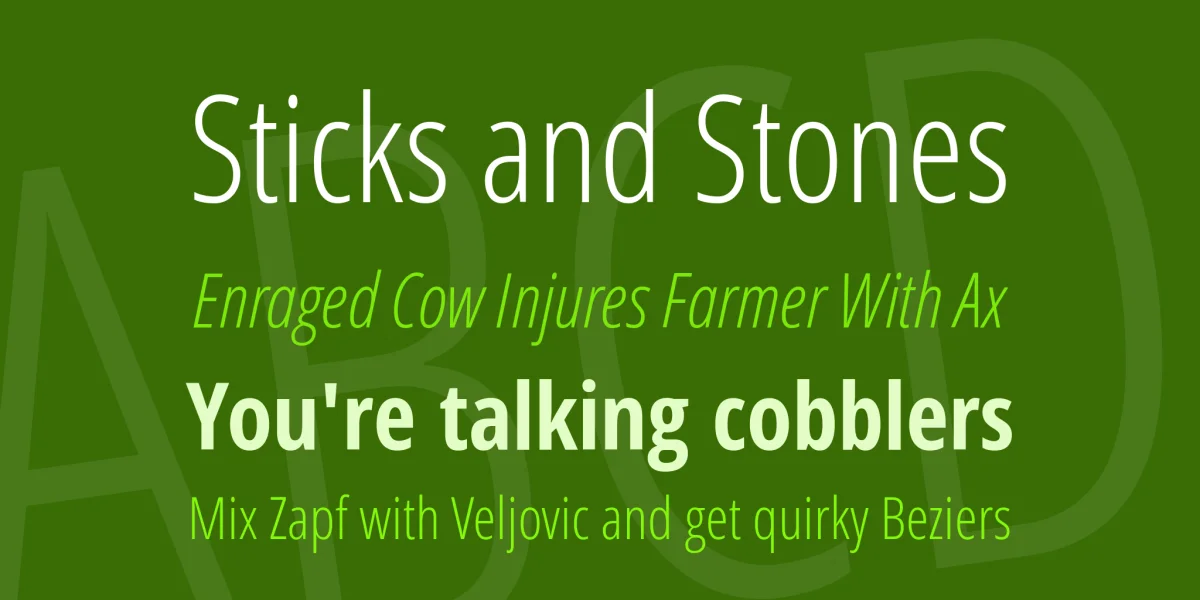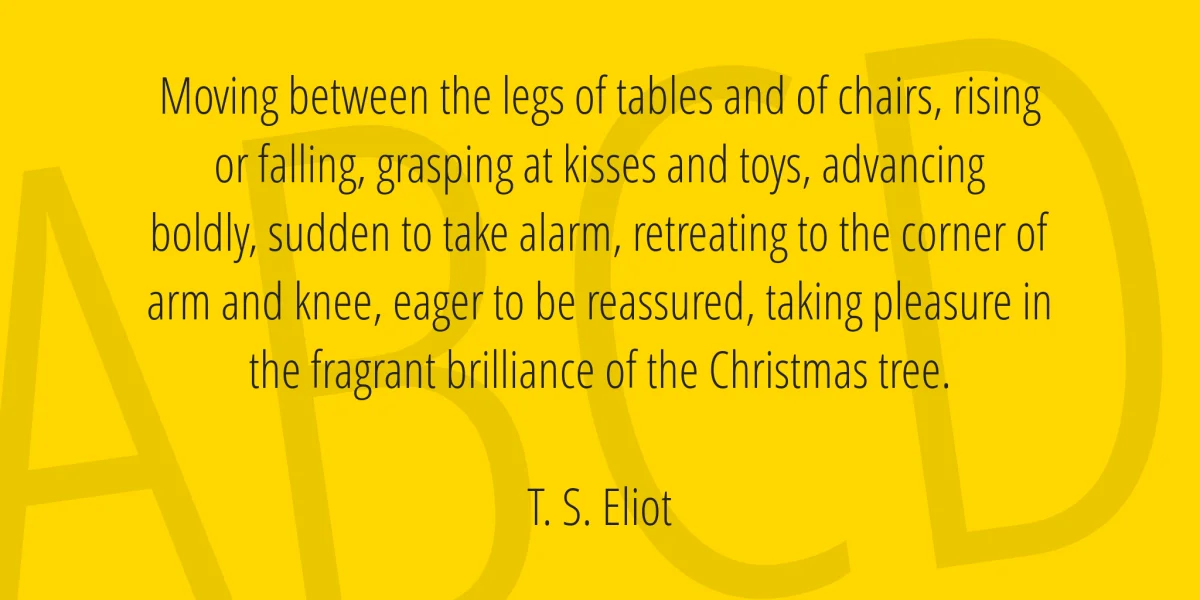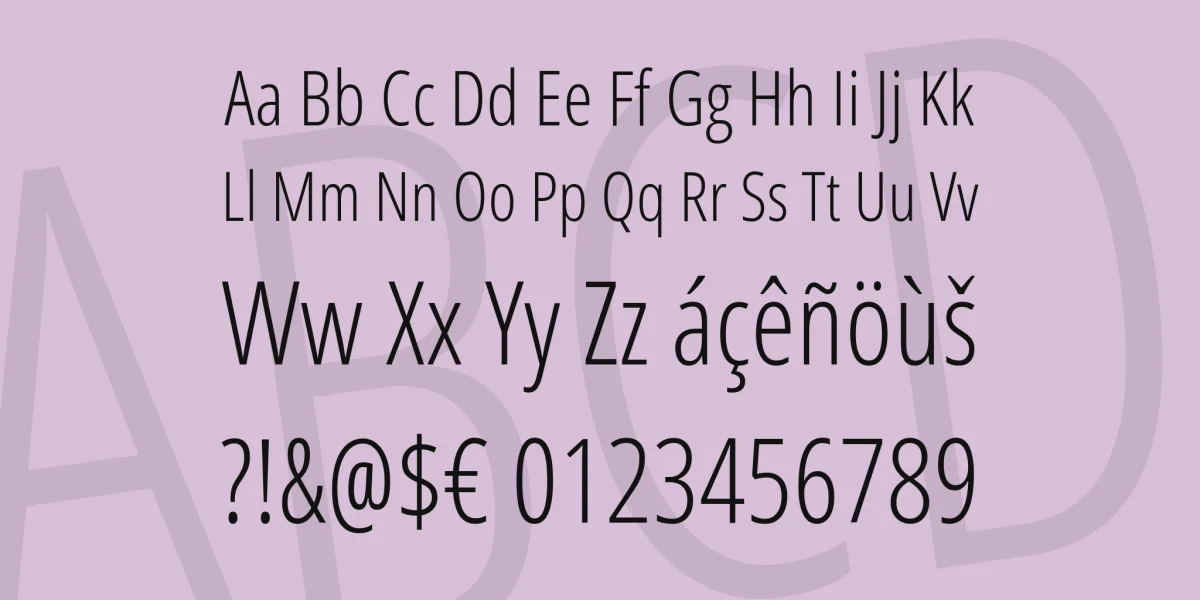
Open Sans is a humanist sans serif typeface designed by Steve Matteson, Type Director of Ascender Corp. This version contains the complete 897 character set, which includes the standard ISO Latin 1, Latin CE, Greek and Cyrillic character sets. Open Sans was designed with an upright stress, open forms and a neutral, yet friendly appearance. It was optimized for print, web, and mobile interfaces, and has excellent legibility characteristics in its letterforms.